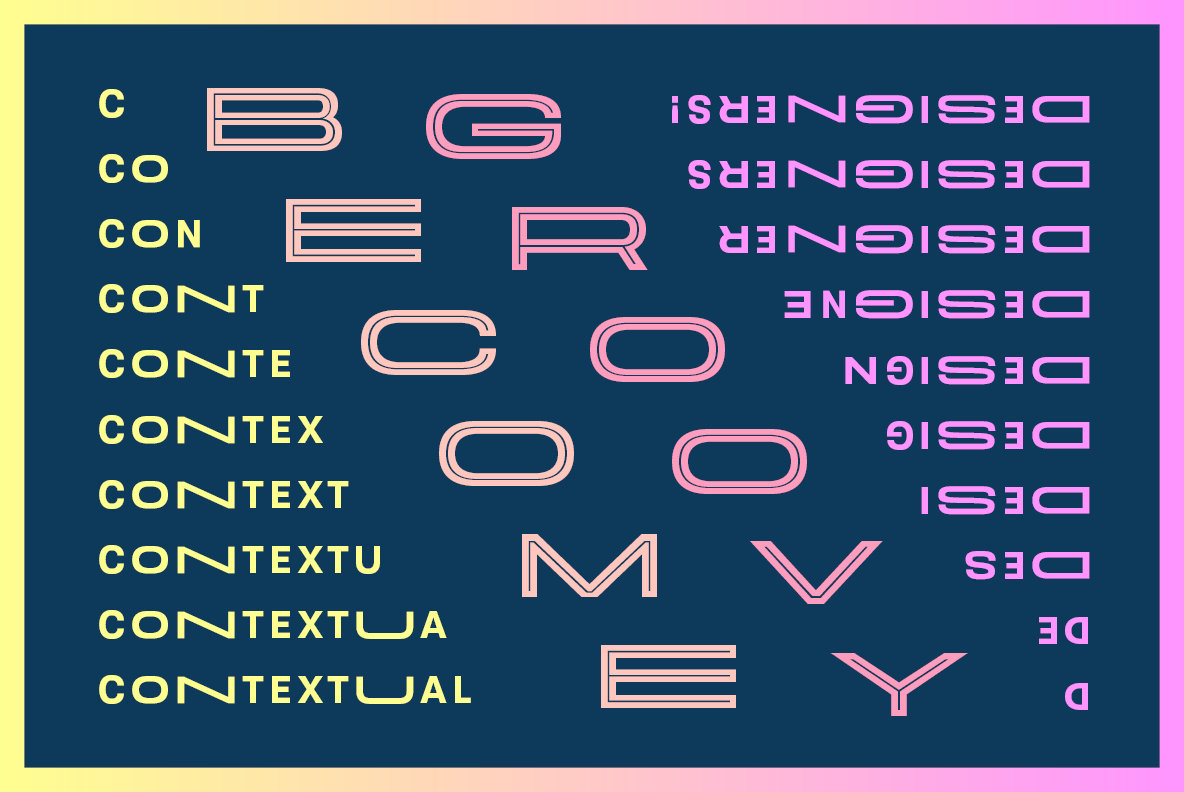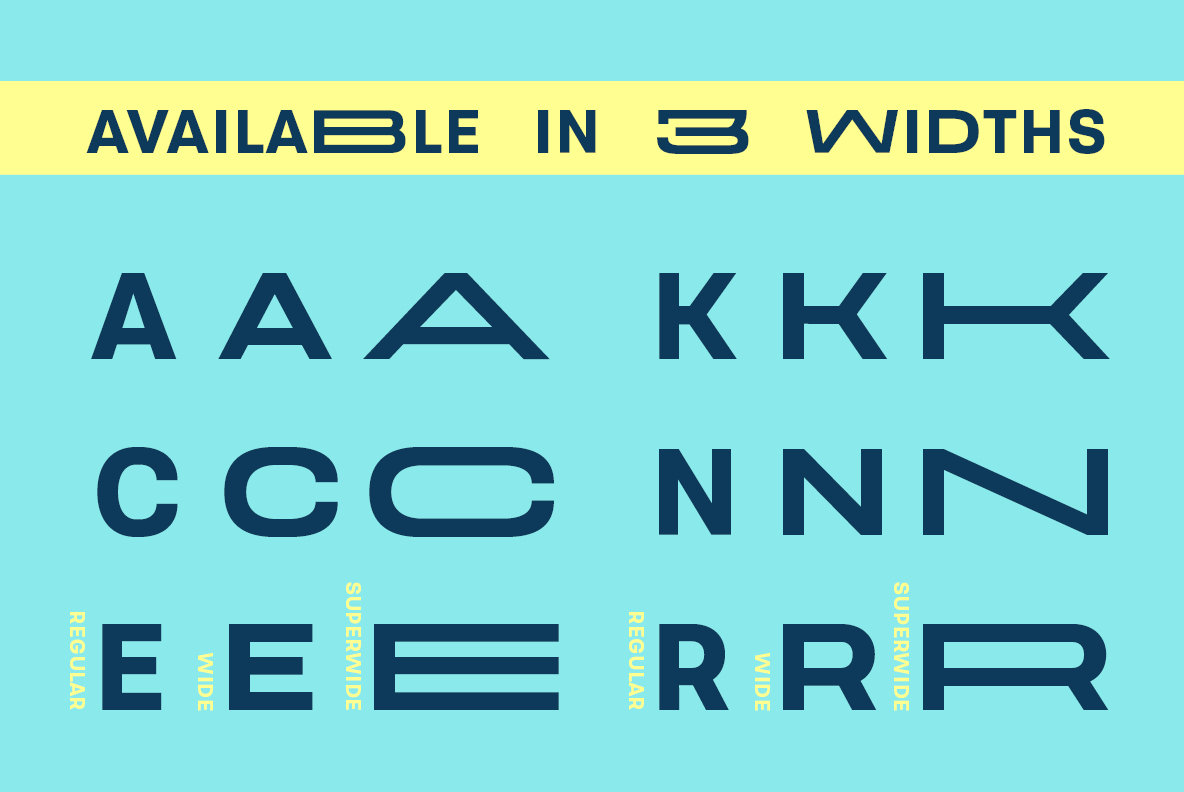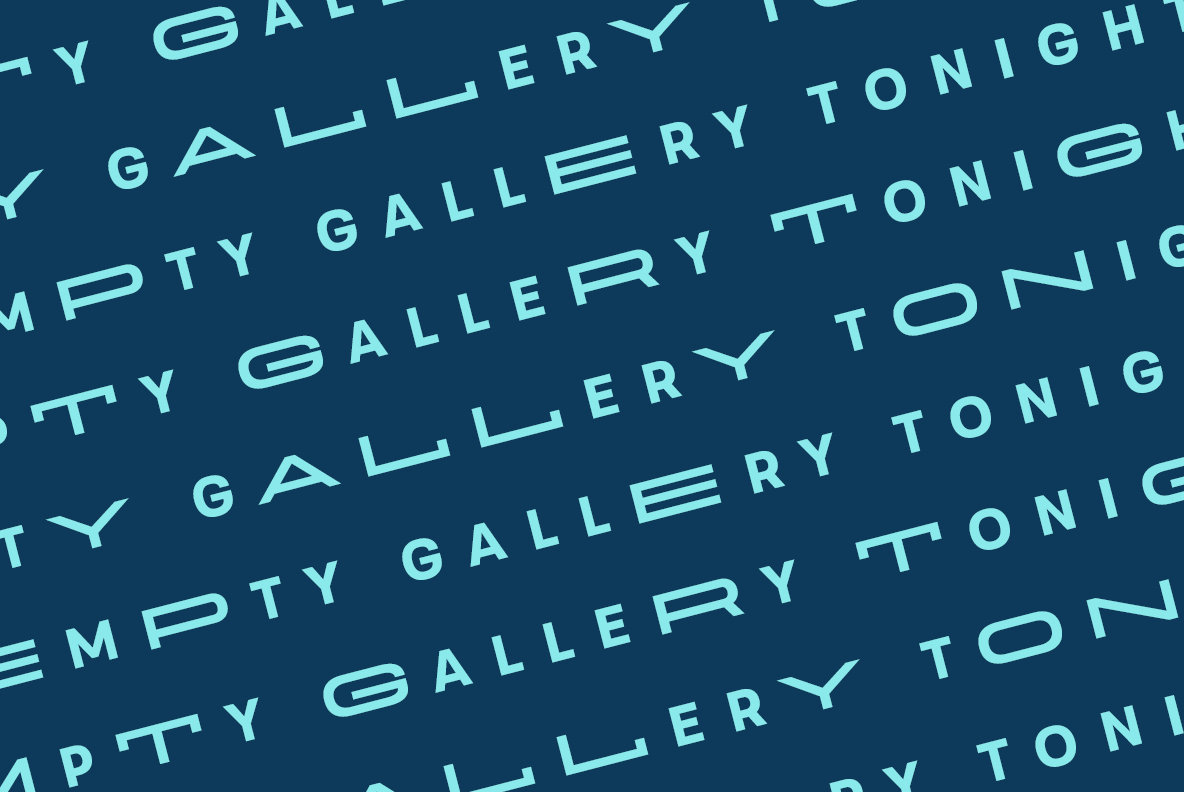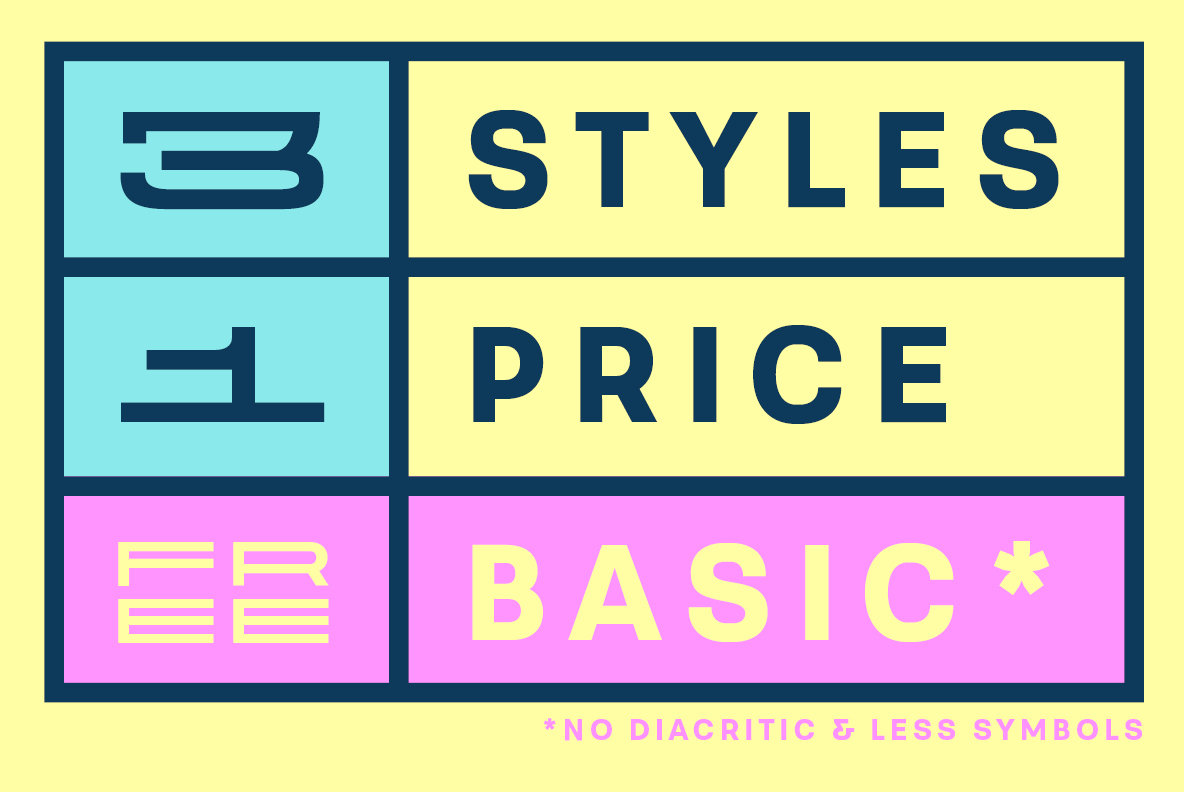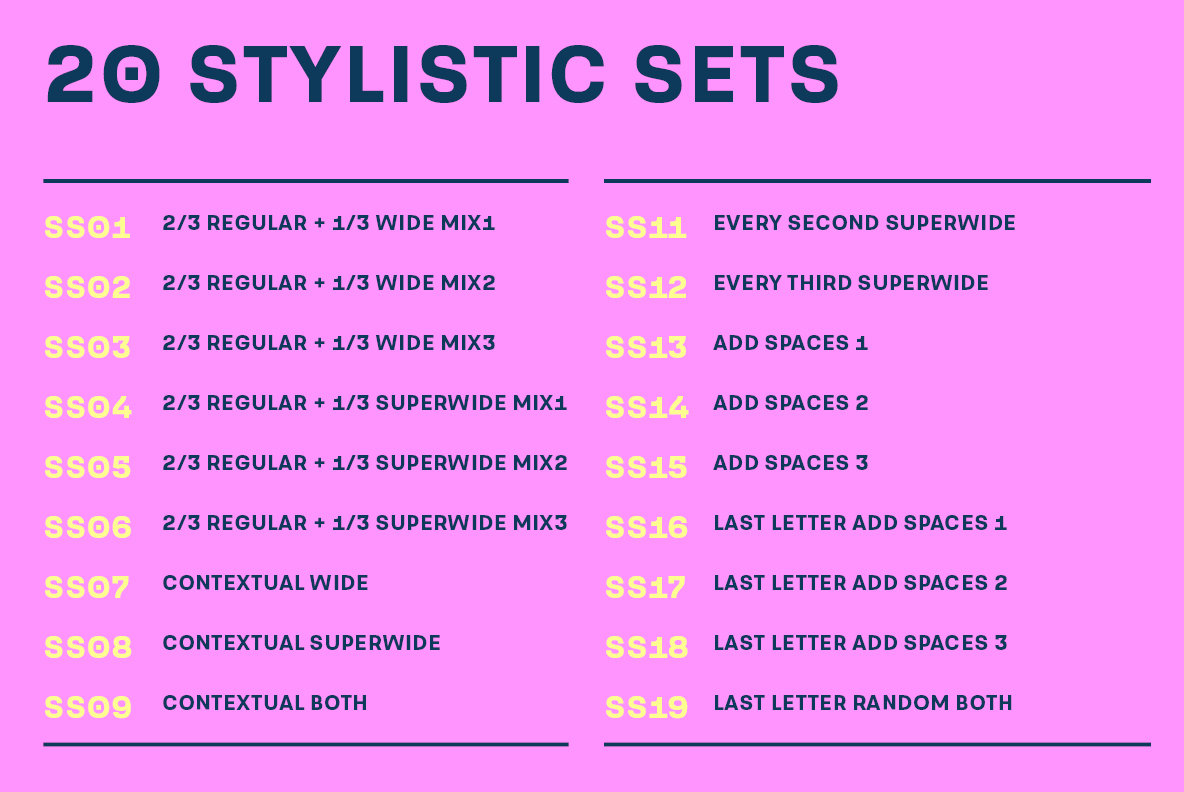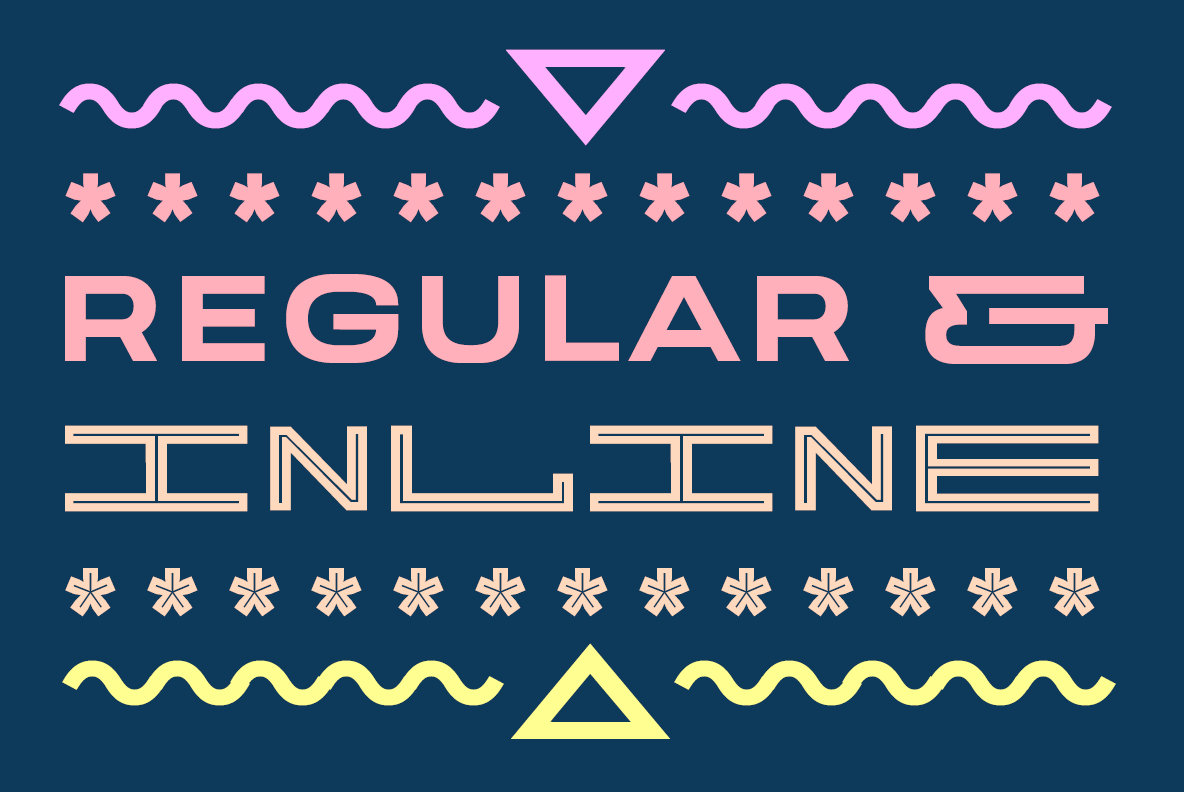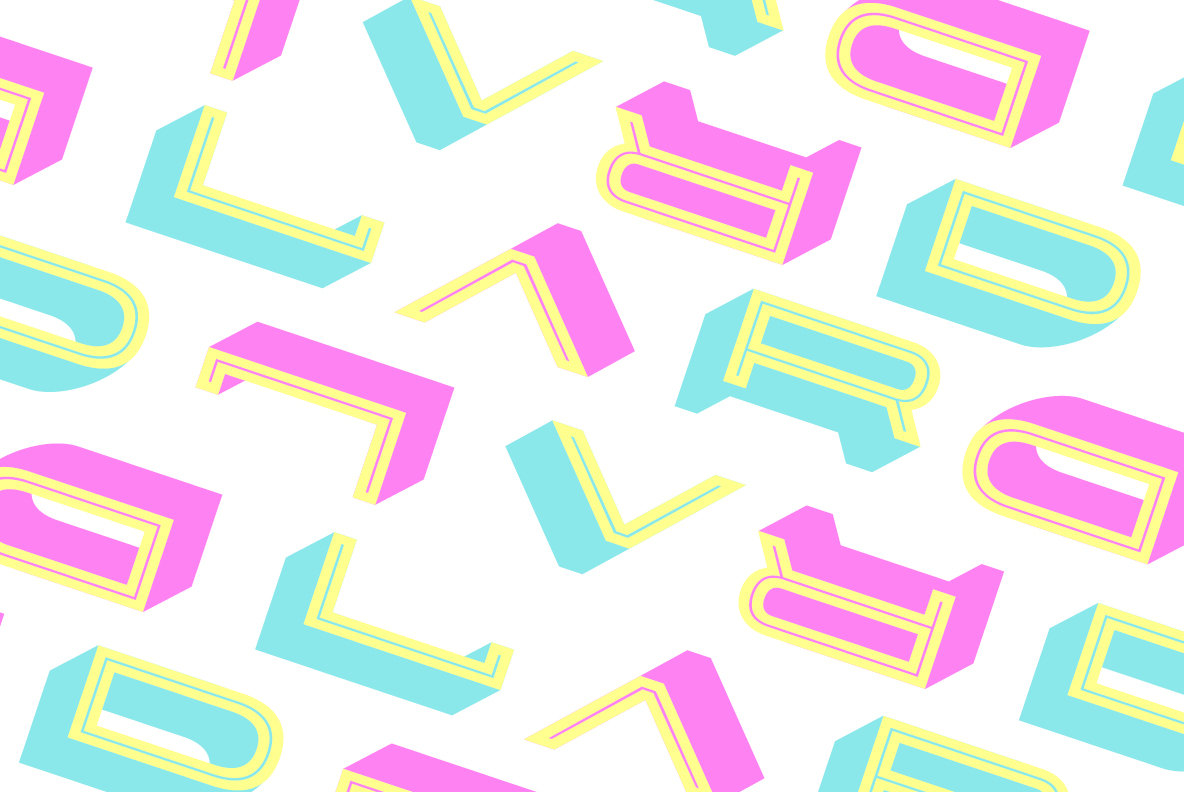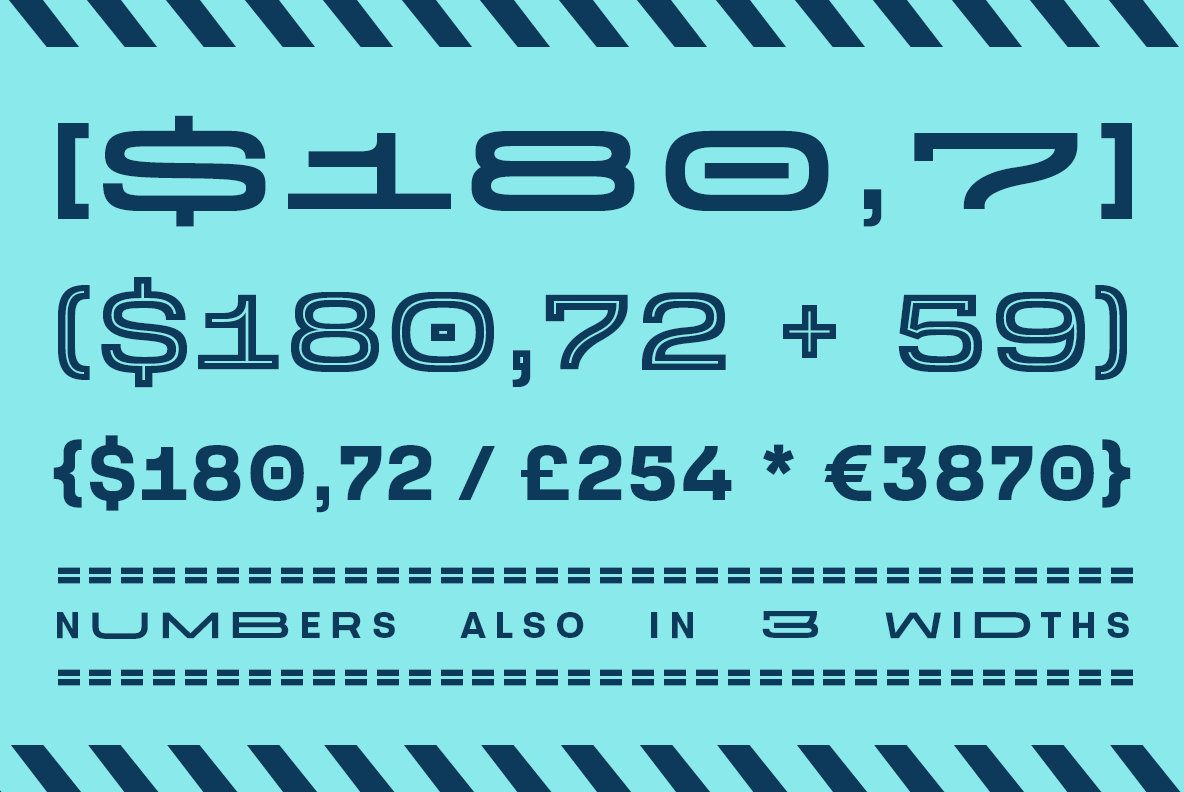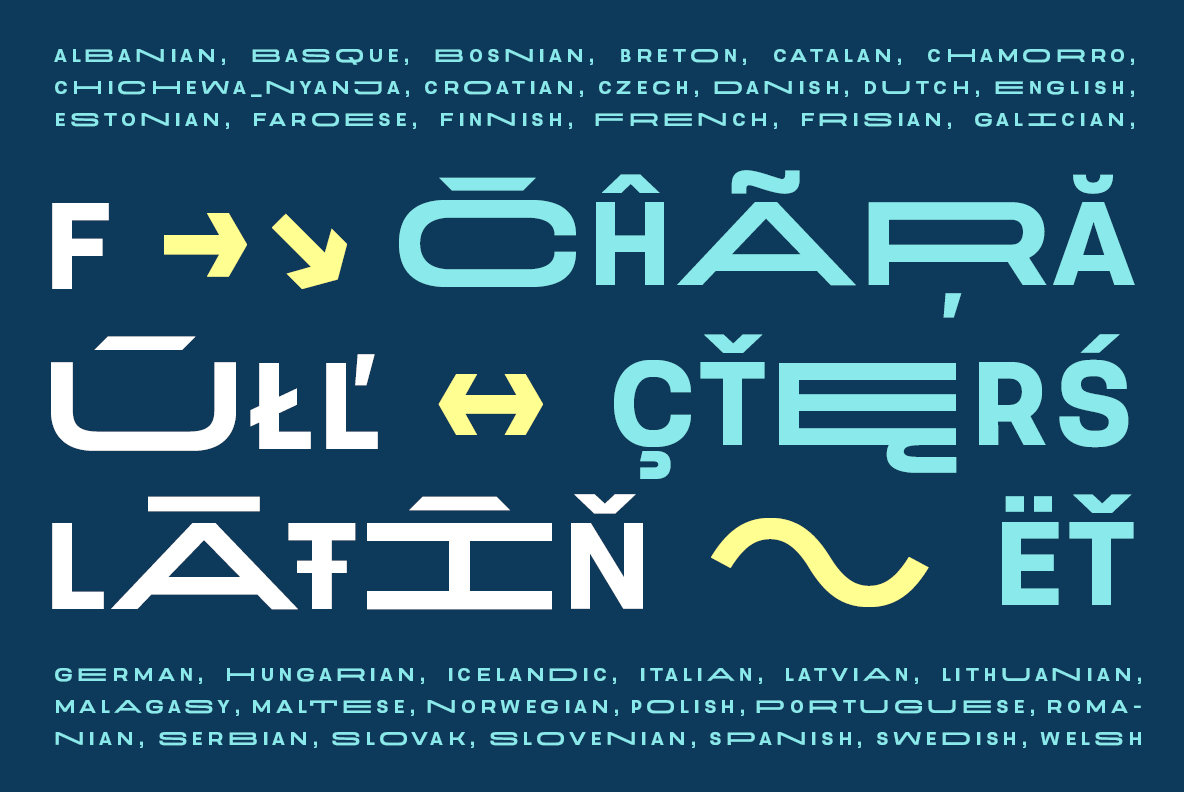
Velodroma Font
Velodroma is new display sans serif, probably one of the widest typefaces ever made. But the widest is not the only thing you get. You get regular and wide too and in one font, so you can combine them together. And if you do not want to do it by yourself the typeface will do it for you through stylistic sets. Be aware that this works only in Indesign by this time, but all the characters are available through wide and superwide styles in other apps too. There are also stylistc sets which will do pseudorandom spaces in between your letters so you can go really crazy with all the stylistic sets combined together. Go and try it with BASIC set for FREE.